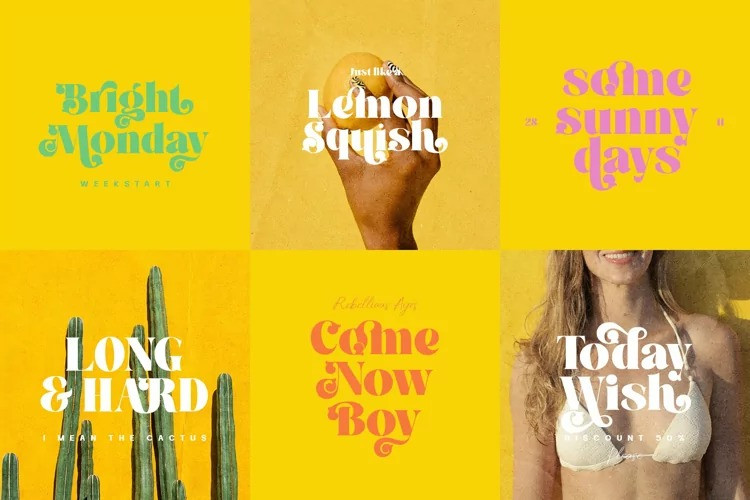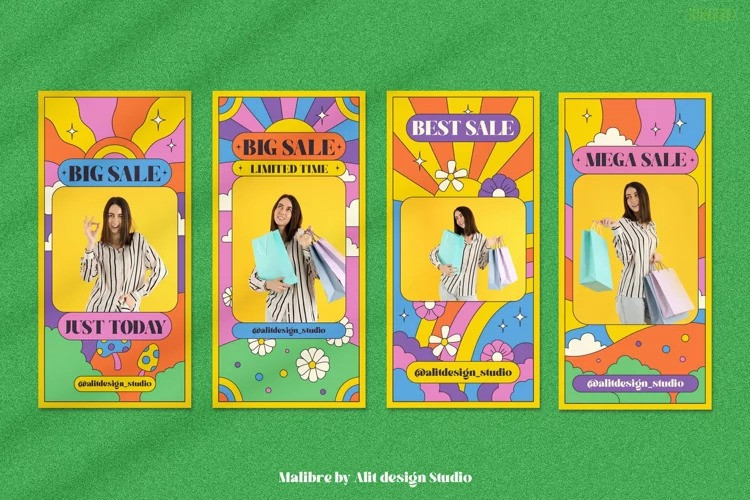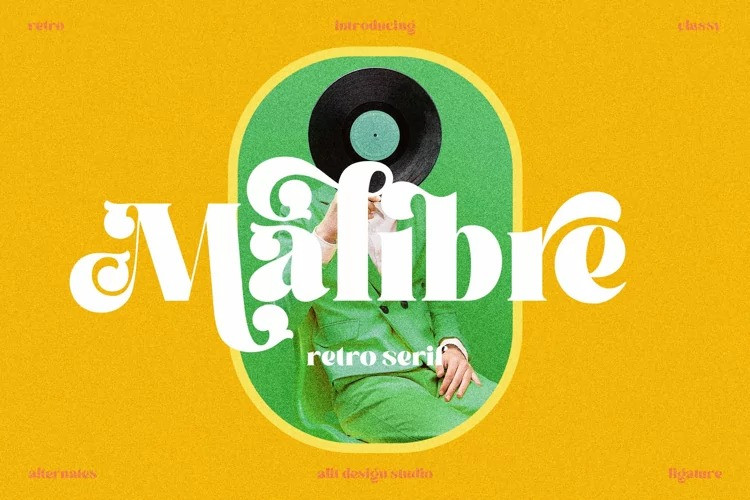
Malibre Font
Looking for a unique, stylish and fun font for your next project? Introducing Malibre Serif font by alitdesign. It was inspired by fashion designs from the 80s to 90s. At the time, font styles like “Malibre Typeface” had a solid and trendy impression. It has a large selection of alternate characters and slashes that make it easy to create bold retro-style designs.
Malibre typeface is great for creating classic concept designs, simple and playful designs, such as creating magazine cover designs, music covers, YouTube thumbs, text titles, logos , etc. with an elegant retort theme. Besides, this font is very easy to use both in design and non-design programs because everything changes and the glyphs are supported by Unicode (PUA).
The Malibre typeface has a total of 721 strokes including notation, multilingual, and alternate strokes.